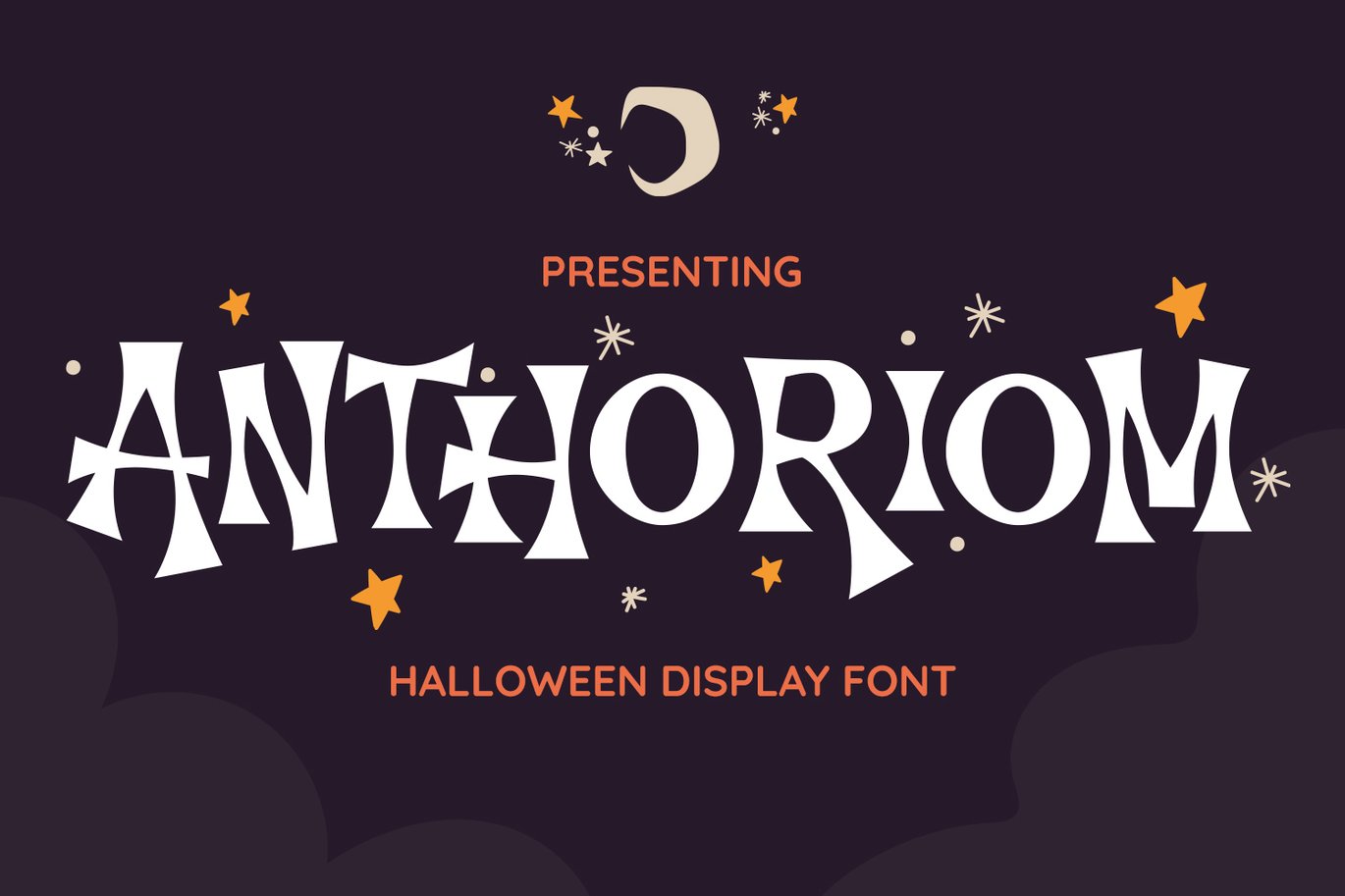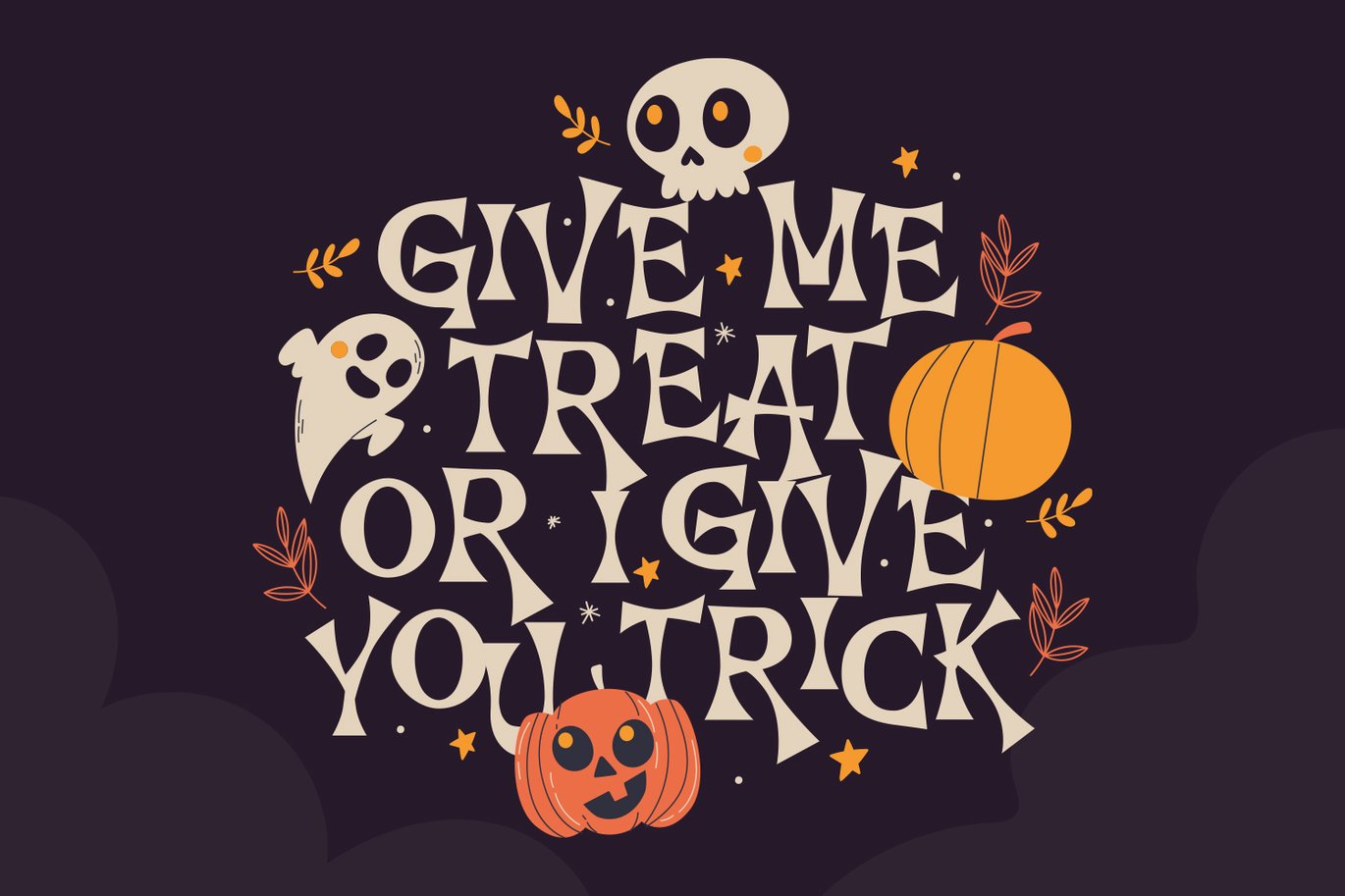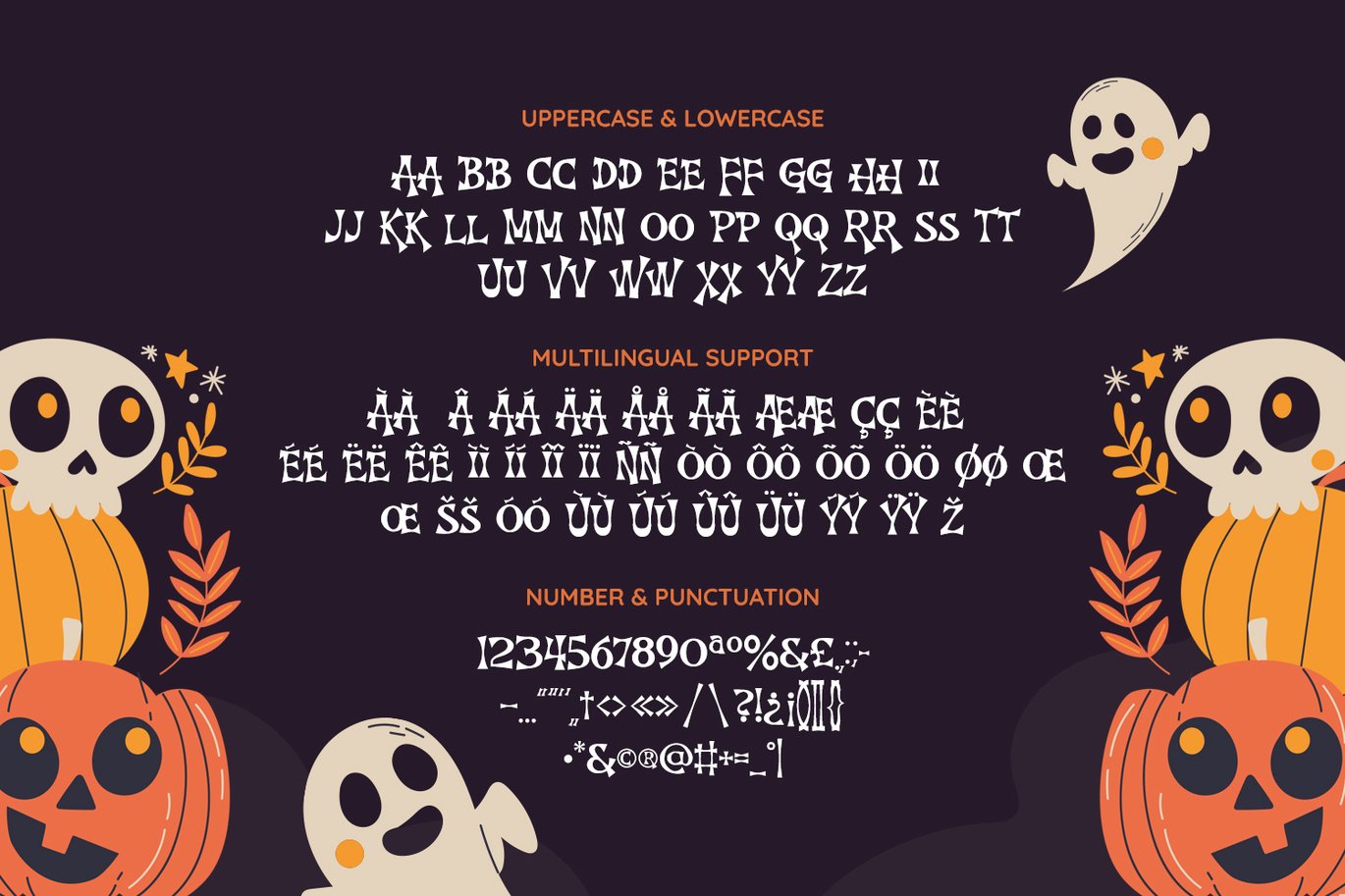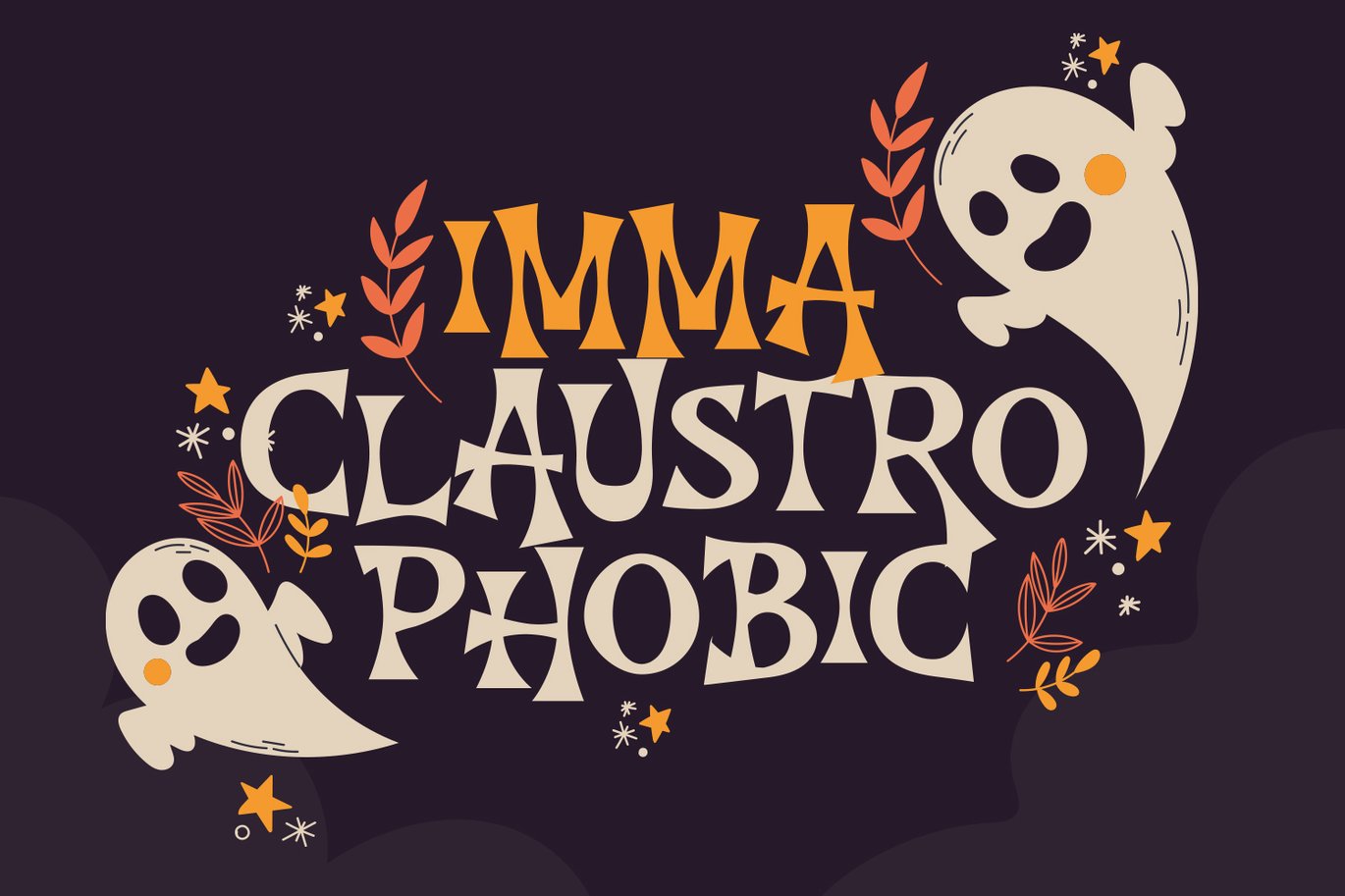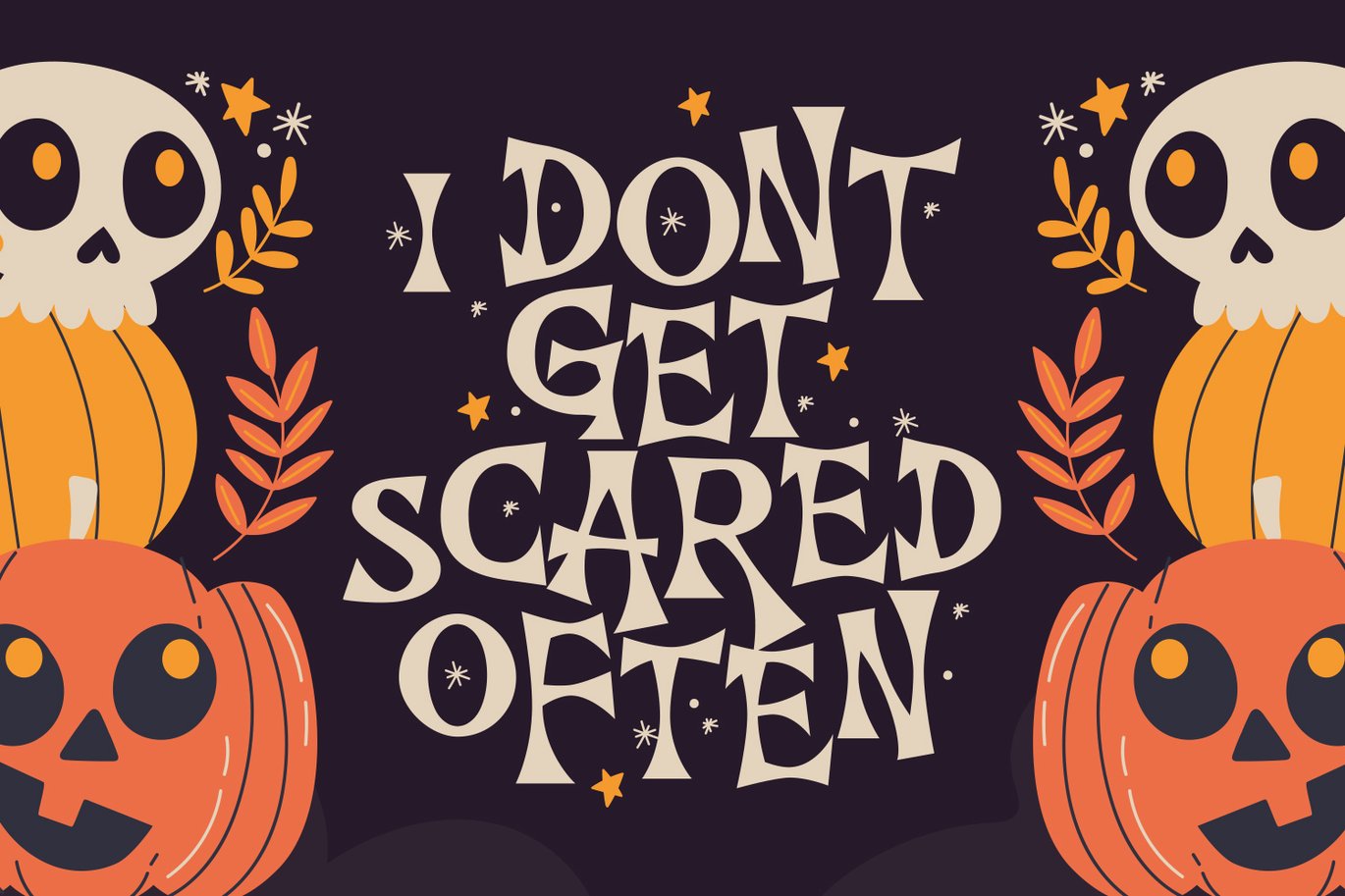
Anthuriom – Halloween Font
Presenting Anthuriom Font is suitable logo, branding, book, t-shirt, magazine, halloween season, headline and etc. Our fonts have Uppercase & Lowercase, Numeral & Punctuation, Multilingual support and Opentype Features. For Amazing designs you can mix with other fonts as a complement.